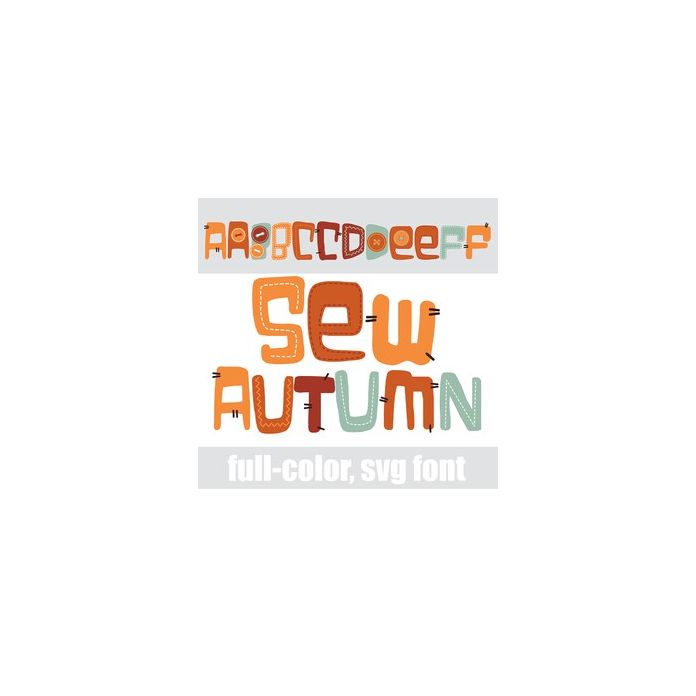
This full-color font features stitches and buttons in a fall color palette. There is an alt case w/ additional colors you can access through your system or Silhouette's glyph map.